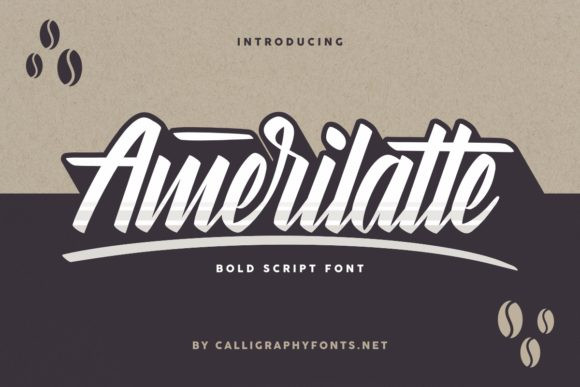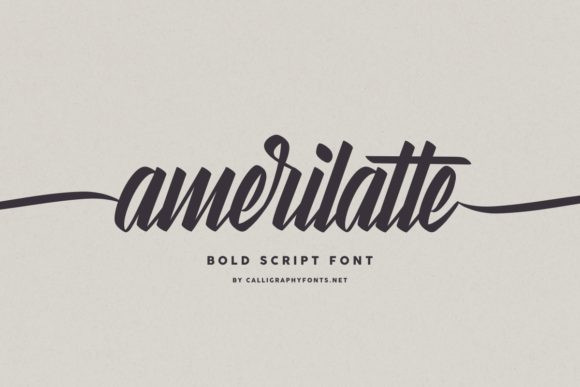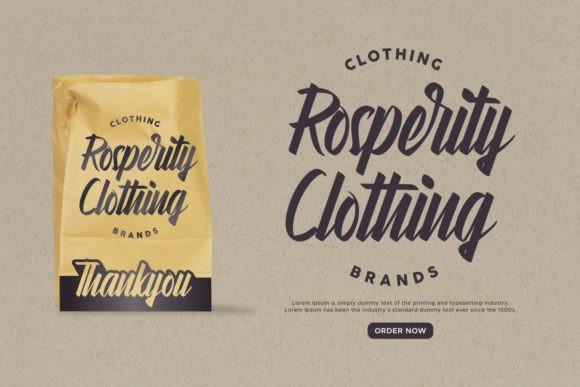
Amerilatte Font
Amerilatte FontAmerilatte is a bold and stylish handwritten font. It looks stunning on wedding invitations, thank you cards, quotes, greeting cards, logos, business cards and every other design which needs a handwritten touch.